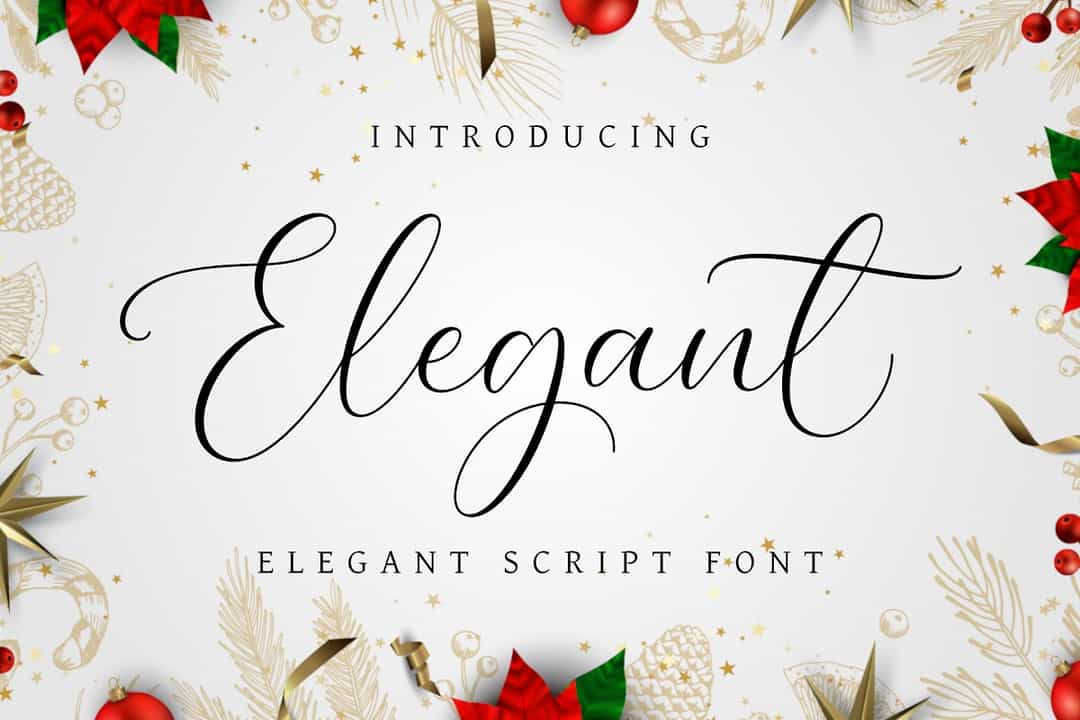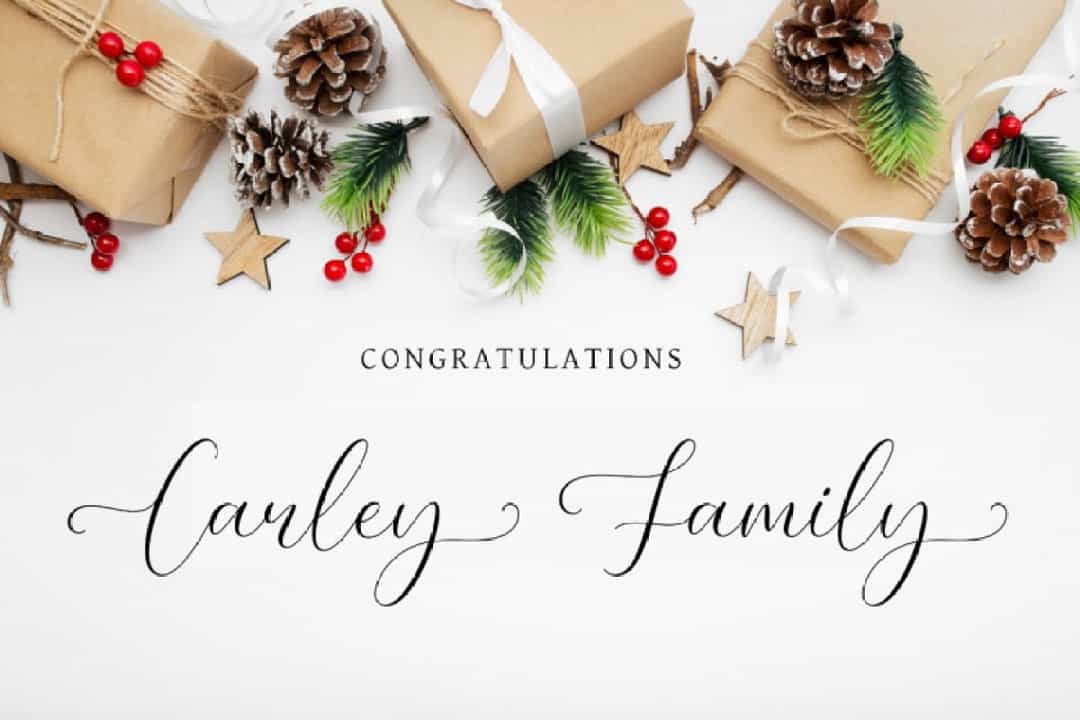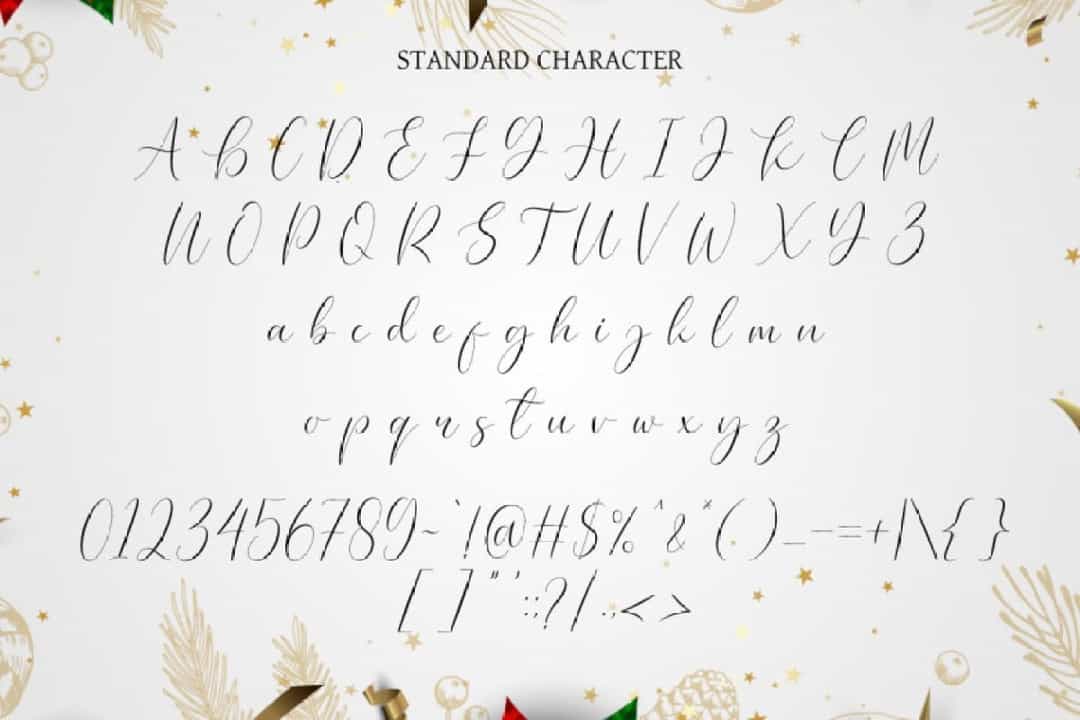
Elegant Font is one of the marvels of font designs that has smoothly flowing curves which make it perfect for use in wedding invitations, thank you cards, quotes, greeting cards and business cards and logos. This font family has various backgrounds with swashes, elegant curves, and lovely glyphs that add a handwritten feel to projects of any kind.